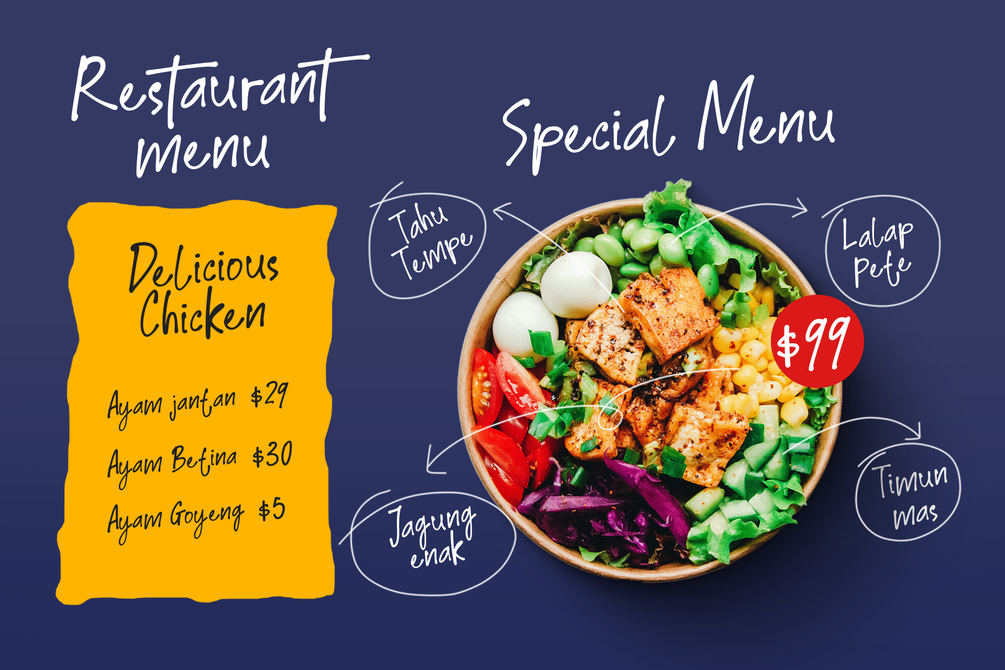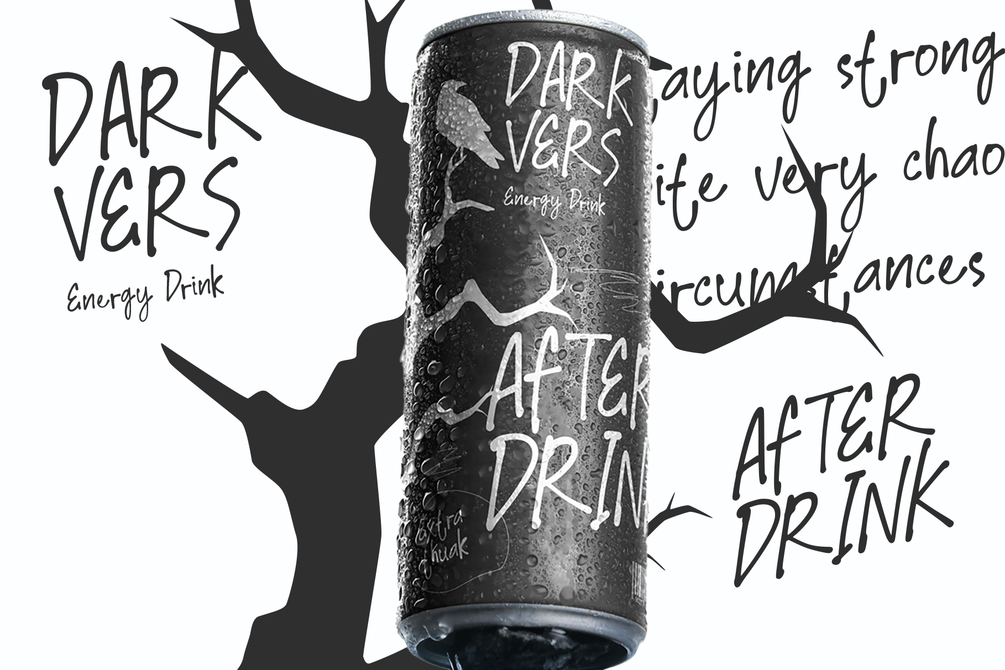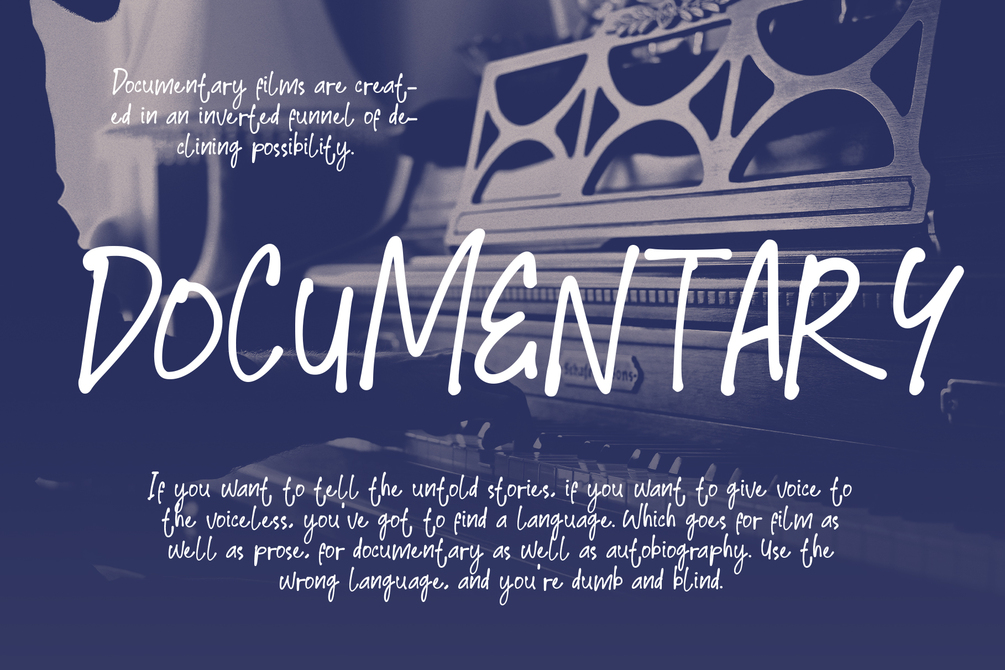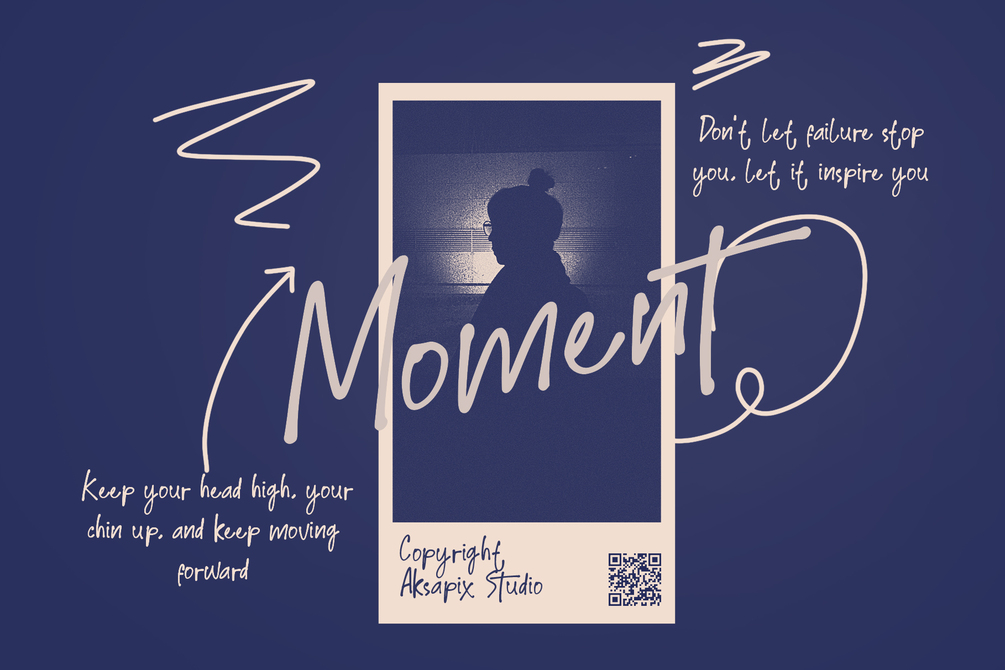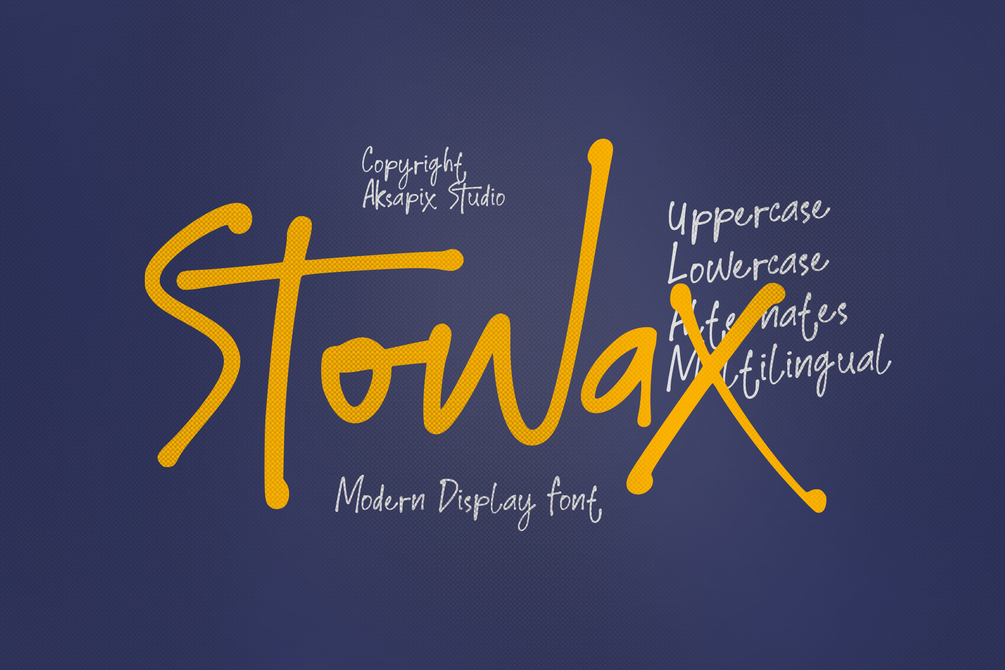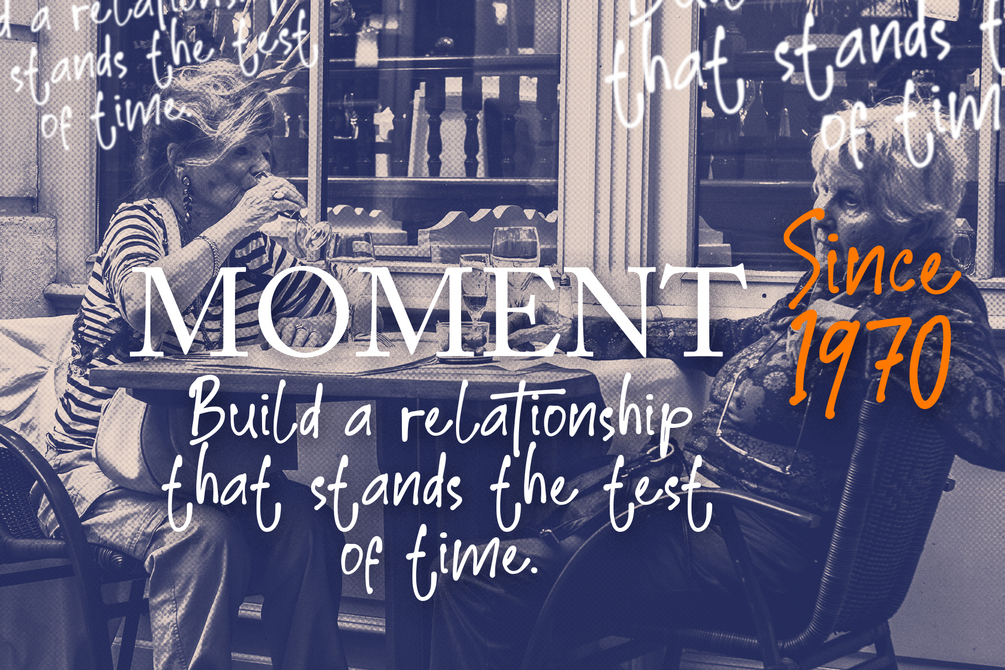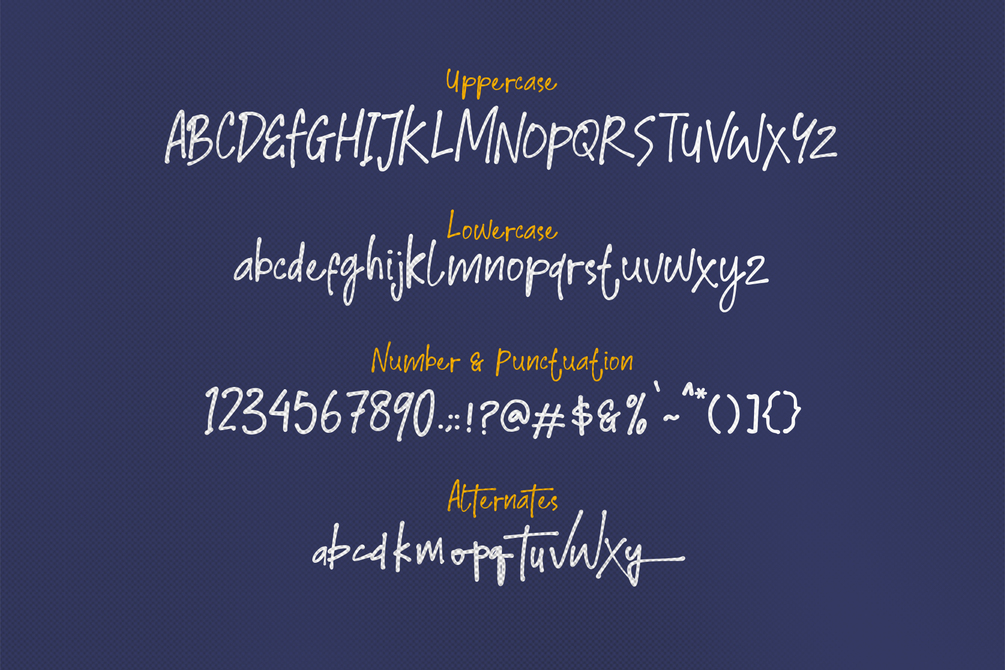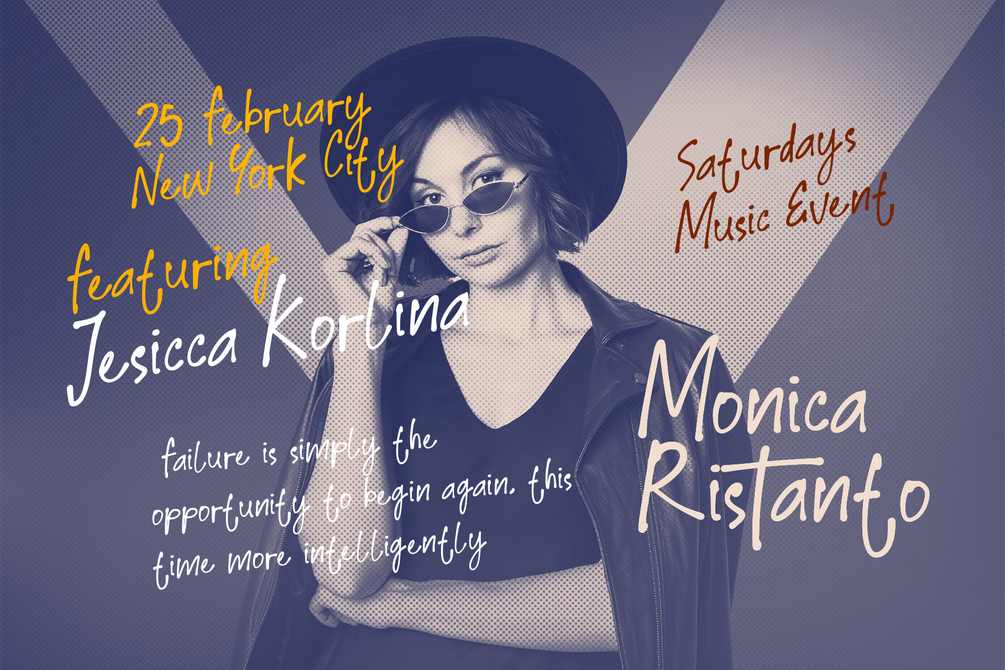
Stowax - Modern Display Font
Introducing Stowax - Modern Display Font, a sleek and contemporary typeface designed to elevate your design projects. This font features a full set of uppercase and lowercase letters, punctuation, several stylistic alternates, and multilingual support. Its modern style makes it perfect for a wide range of design projects, adding a touch of sophistication and flair.
Features:
- Uppercase & Lowercase: Versatile character set for diverse typography needs.
- Punctuation: Complete set for polished and professional designs.
- Stylistic Alternates: Additional character variations for creative flexibility.
- Multilingual Support: Ensures compatibility with various languages and locales.
Perfect For:
- Modern Logos
- Corporate Branding
- Advertising Campaigns
- Website Headers
- Social Media Graphics
Transform your designs with the sleek and contemporary style of Stowax - Modern Display Font. Ideal for modern logos, corporate branding, and advertising campaigns, this font brings a unique touch to every project.